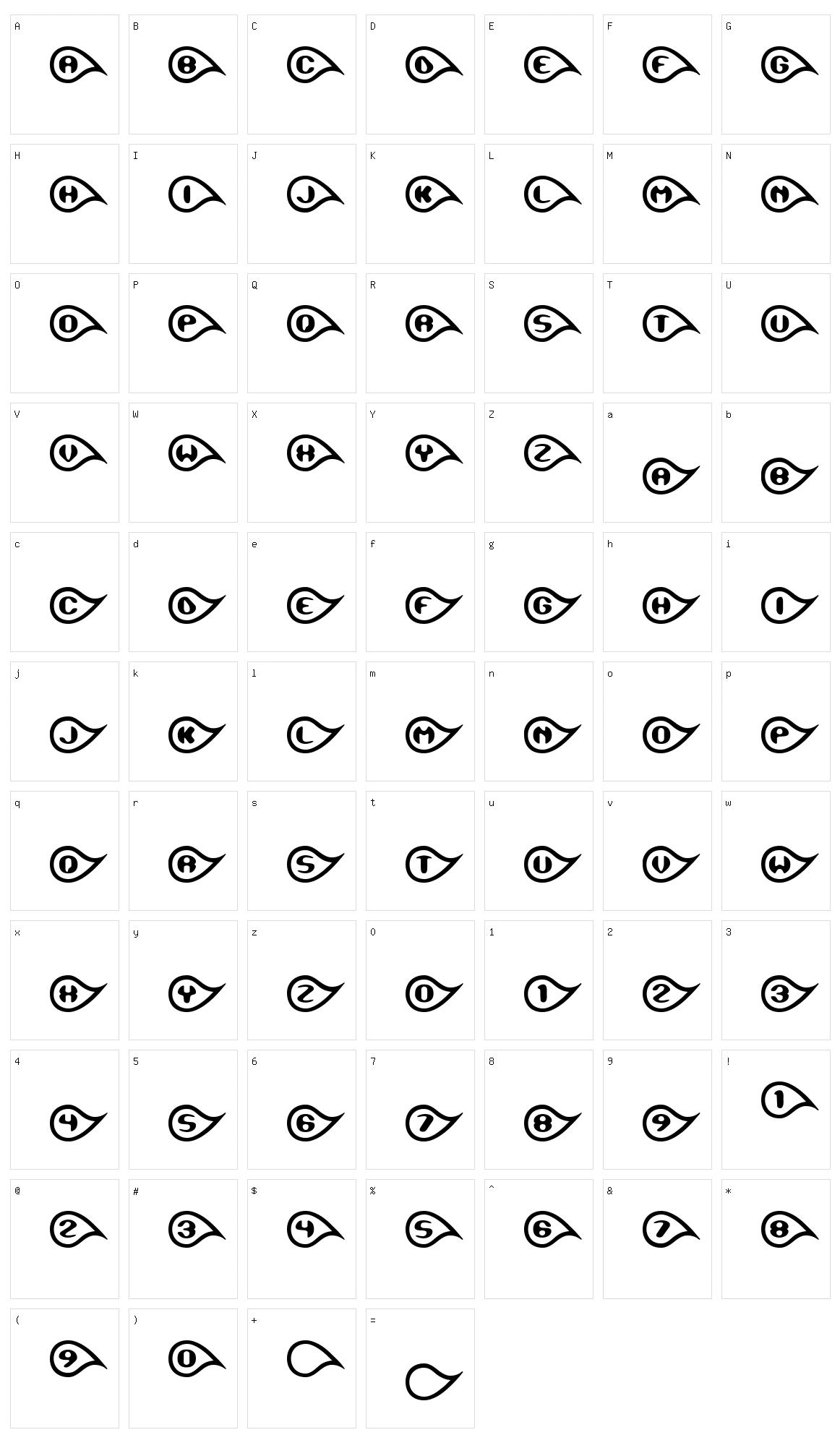
Tearful Created by Brian Kent
--To use this Font start out with either a Capital or lower case letter
then with the next letter 'Alternate' the Case to make the letters
connect. Keep doing this until you finish you word. For example
type in your word like this "TeArFuL".
--You can also just have all Top 'Tears' or all bottom 'Tears' by
typing a letter then a space then a letter and so on. For example
for all Top 'Tears' type your word like this "T E A R F U L", and for
all bottom 'Tears' type your word like this "t e a r f u l".
--If you want a Blank 'Tear' use + for a top 'Tear' and = for a
bottom 'Tear'.
--For the numbers all of the bottom 'Tears' are the "1234567890" and
for the top 'Tears' press Shift+The Number "!@#$%^&*()"